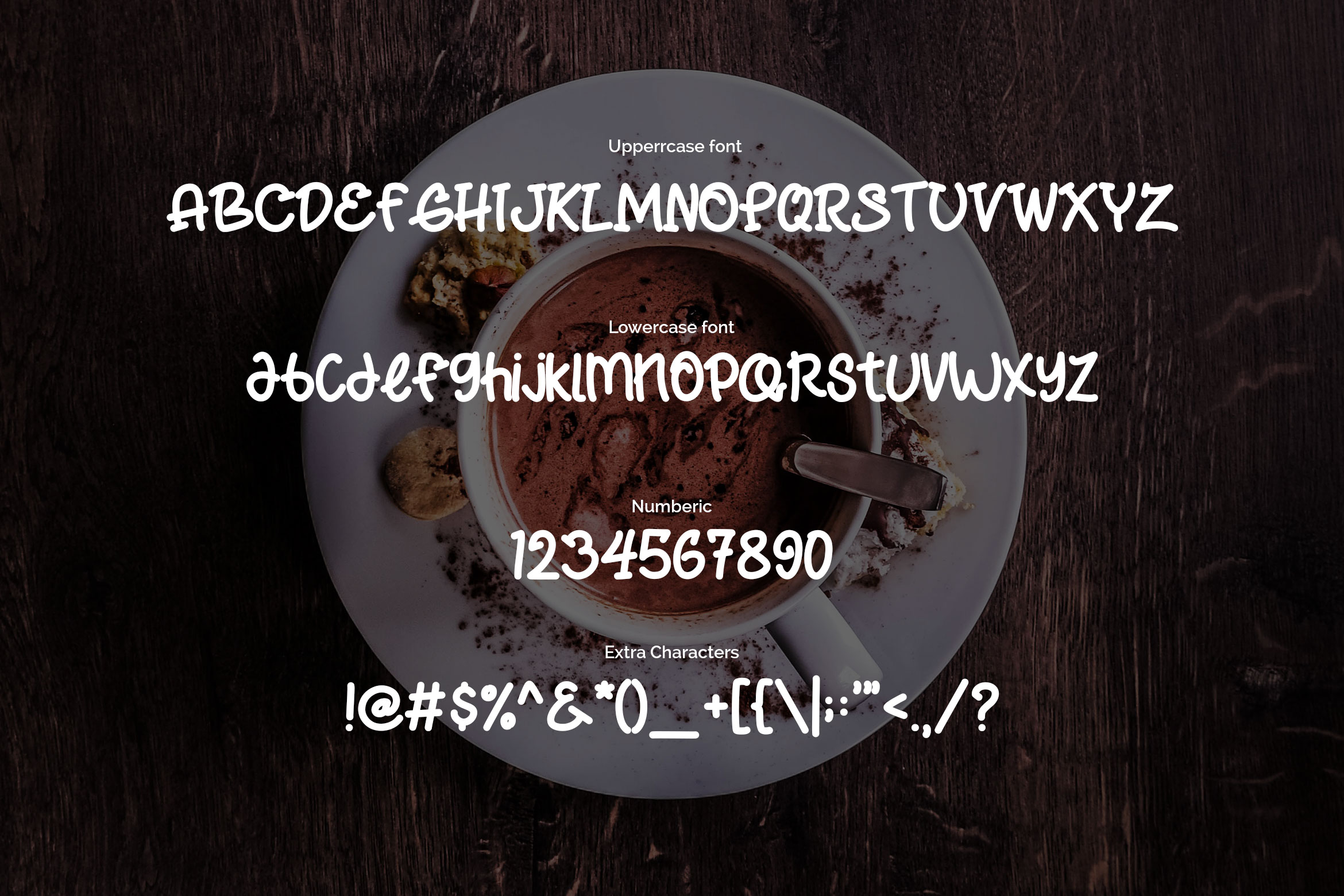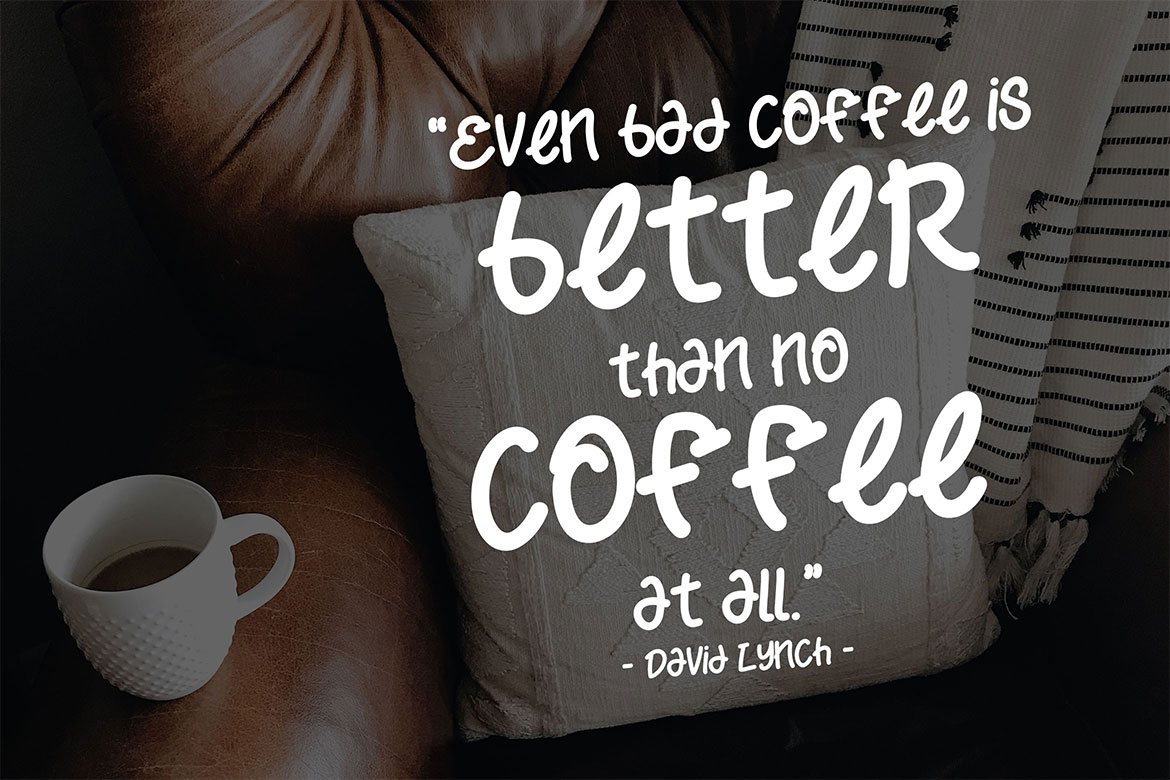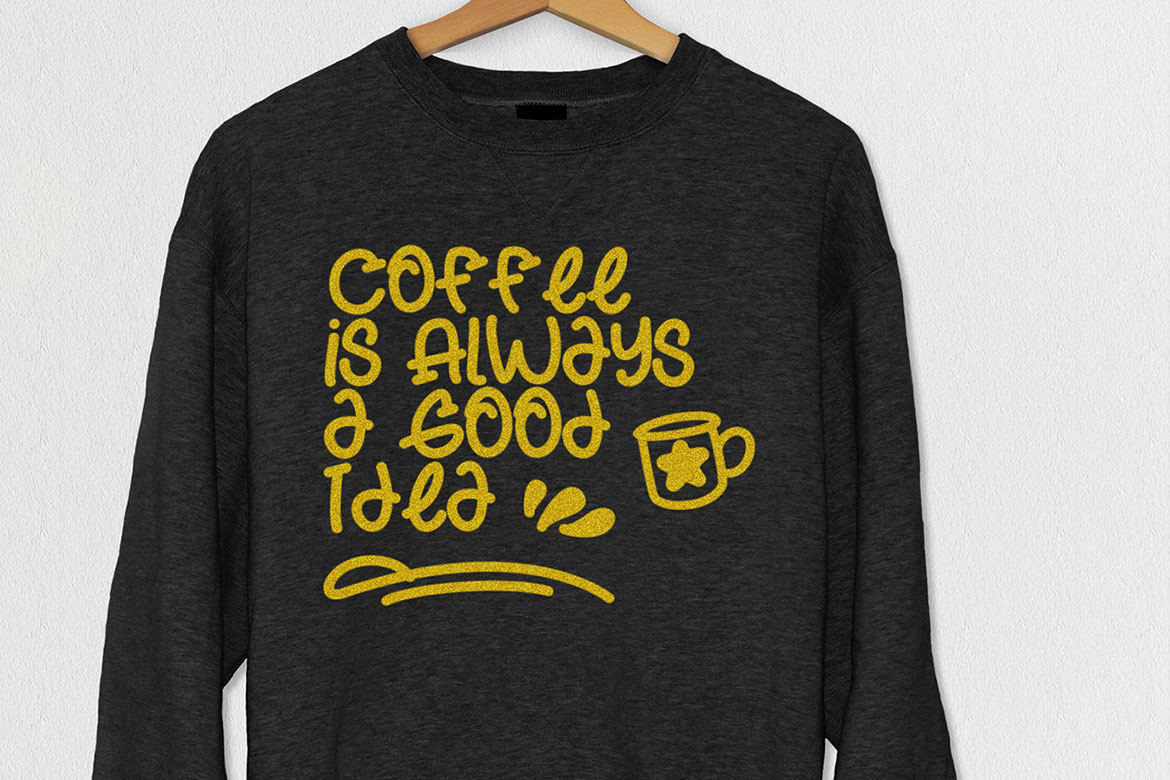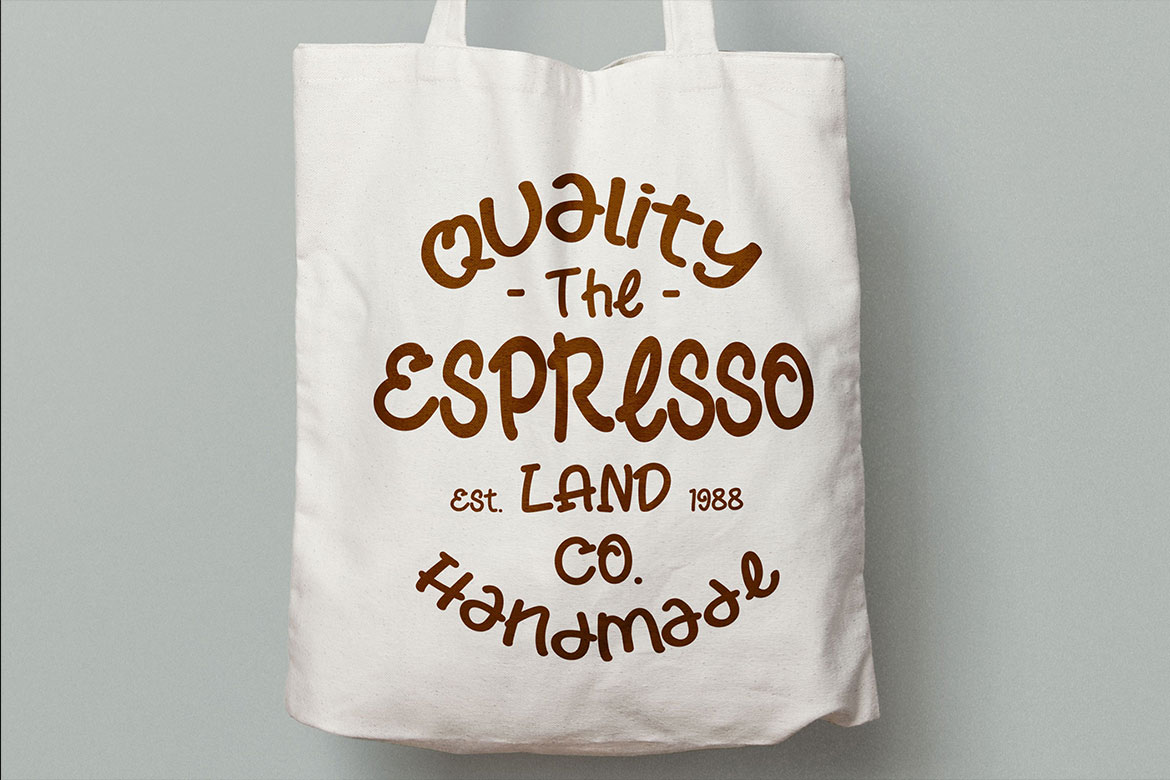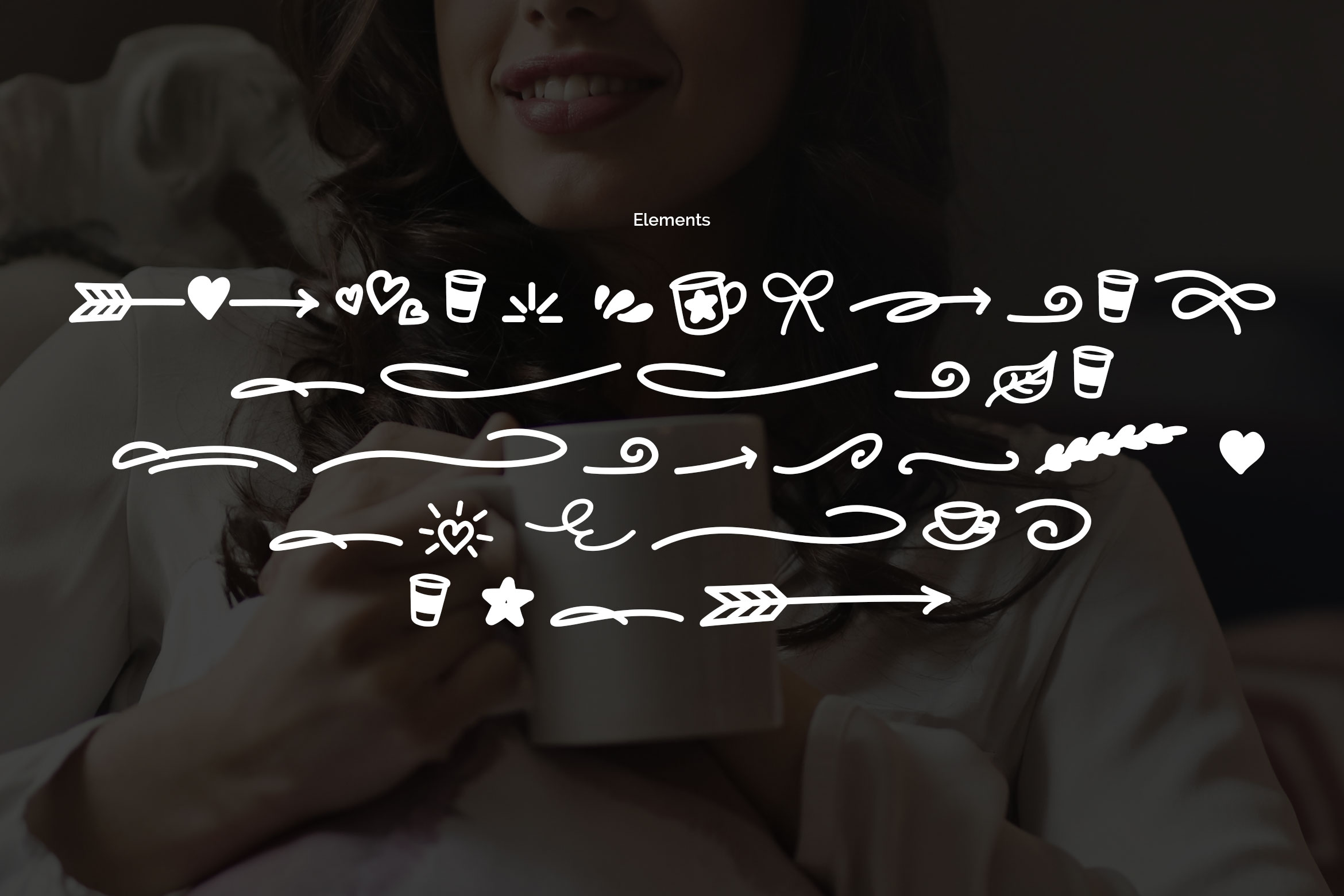
Introduction to Frappe Latte Font
As a designer, have you ever found yourself browsing through a coffee shop, sipping on a latte, and suddenly struck with inspiration for your next creative project? The combination of rich flavors and visually appealing cups can be a powerful trigger for ideas. For many designers, finding the perfect font can be just as crucial as finding the perfect cup of coffee. That’s where Frappe Latte Font comes in – a beautiful and fun sans serif font that’s sure to add a touch of whimsy to your designs.
Handmade with love, Frappe Latte Font offers a genuine and authentic look that’s perfect for designers looking to add a high-quality touch to their creative projects. With its transparent background and free download option, it’s an invaluable design resource that’s waiting to be used. Whether you’re working on a fun and playful campaign or a sophisticated brand identity, Frappe Latte Font is sure to be a valuable addition to your design toolkit.
Key Features of Frappe Latte Font
- High-quality, elegant font perfect for creative projects, with a unique design that adds a touch of sophistication.
- Comes with a transparent background, making it easy to layer and customize in your design resource.
- Includes a range of sizes, from 12pt to 72pt, to suit various design needs and applications.
- High-resolution font, suitable for printing and digital use, with a resolution of 300 DPI or higher.
- Designed to be versatile and adaptable, making it an excellent choice for a wide range of creative projects and design resources.
Honest Review: Frappe Latte Font
I recently had the chance to work with the Frappe Latte Font, and I’m excited to share my thoughts on this high-quality design resource.
- ✨ Unique and creative design: The Frappe Latte Font has a beautiful, hand-drawn feel that sets it apart from more generic fonts.
- ✨ Transparent background: This makes it easy to use the font on a variety of backgrounds and create a cohesive look for your project.
- ⚠️ Limited character set: The font only includes a limited set of characters, which may make it difficult to use for certain creative projects.
- ⚠️ Not ideal for small text: The font’s unique design makes it difficult to read in small sizes, so it’s best used for larger text.
Overall, I’m impressed with the Frappe Latte Font’s unique design and high-quality feel. While it may have some limitations, it’s a great resource for designers working on creative projects and looking for a free, high-quality font.
Tips for Getting the Most Out of Frappe Latte Font
For optimal results, use the Frappe Latte Font on a transparent background to create a clean and modern design. Experiment with different font sizes and colors to add visual interest to your project.
The Frappe Latte Font is perfect for creative projects, such as social media graphics, blog posts, and presentations. Its high-quality design makes it an excellent resource for any design project that requires a sophisticated and elegant look.